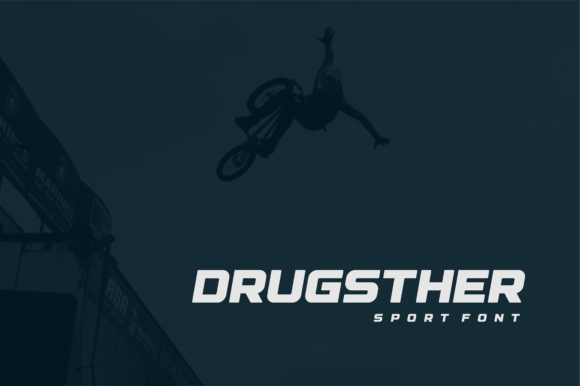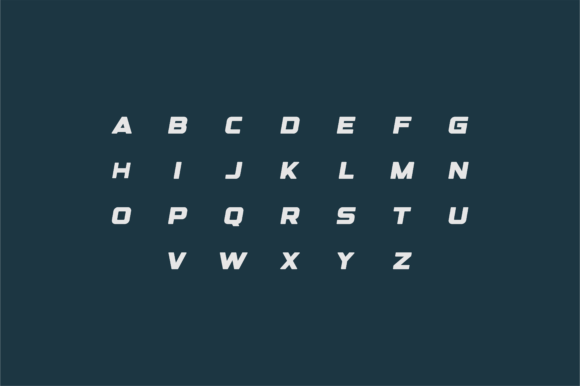
Introducing Drugsther Font: A Simple yet Powerful Display Font
Are you tired of using the same old fonts for your designs? Look no further! Drugsther Font is a game-changer for designers and crafters alike. This simple and sharp looking display font is sure to inspire your works and take your designs to the next level. In this article, we’ll dive into the features and benefits of Drugsther Font, and explore its endless possibilities.
What is Drugsther Font?
Drugsther Font is a modern display font that exudes simplicity and sophistication. Its clean lines and sharp edges make it perfect for designs that require a bold and edgy look. The font is designed to be versatile, making it suitable for a wide range of applications, from branding and advertising to packaging and digital media.
Key Features of Drugsther Font
- Simple and Sharp Design: Drugsther Font features a simple yet sharp design that makes it stand out from other fonts.
- Highly Versatile: The font is designed to be versatile, making it suitable for a wide range of applications.
- Easy to Read: Despite its bold design, Drugsther Font is easy to read, even at small sizes.
- Perfect for Headings and Titles: The font is ideal for headings and titles, where a bold and eye-catching font is required.
Benefits of Using Drugsther Font
So, why should you use Drugsther Font for your designs? Here are just a few benefits:
- Adds a Professional Touch: Drugsther Font adds a professional touch to your designs, making them look more polished and sophisticated.
- Grabs Attention: The font’s bold design grabs attention and draws the eye, making it perfect for headings and titles.
- Versatile: Drugsther Font can be used for a wide range of applications, from branding and advertising to packaging and digital media.
- Easy to Pair with Other Fonts: The font is easy to pair with other fonts, making it simple to create a cohesive look.
Endless Possibilities with Drugsther Font
So, what can you do with Drugsther Font? The possibilities are endless! Here are a few ideas to get you started:
- Branding and Advertising: Use Drugsther Font to create bold and eye-catching logos, posters, and advertisements.
- Packaging Design: The font is perfect for packaging design, where a bold and attention-grabbing font is required.
- Digital Media: Use Drugsther Font to create stunning digital media, including social media graphics, blog posts, and website headers.
- Crafting and DIY Projects: The font is also perfect for crafting and DIY projects, such as making signs, banners, and other decorative items.
| Font Name | Drugsther Font |
| Author | Letterna |
Tips and Tricks for Using Drugsther Font
Here are a few tips and tricks for using Drugsther Font:
- Experiment with Different Sizes: Try using Drugsther Font in different sizes to create visual interest.
- Pair with Other Fonts: Experiment with pairing Drugsther Font with other fonts to create a unique look.
- Use for Headings and Titles: Use Drugsther Font for headings and titles to add a bold and eye-catching touch.